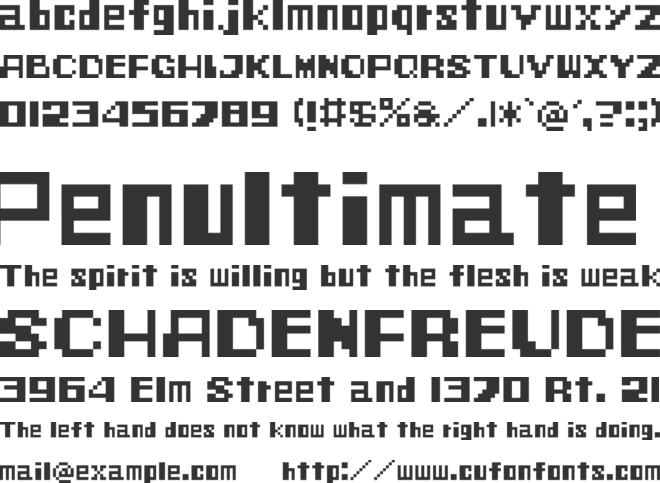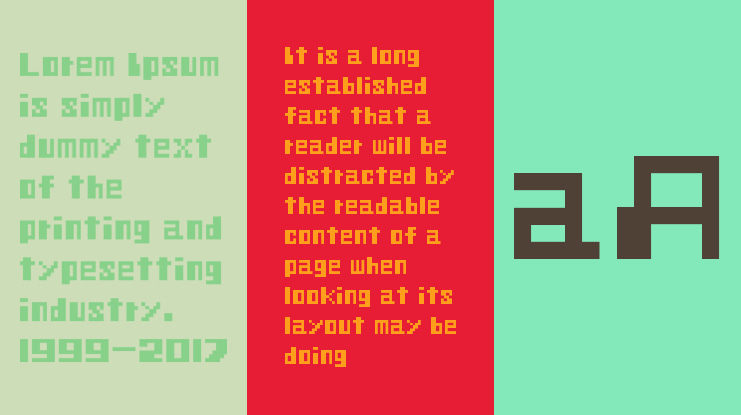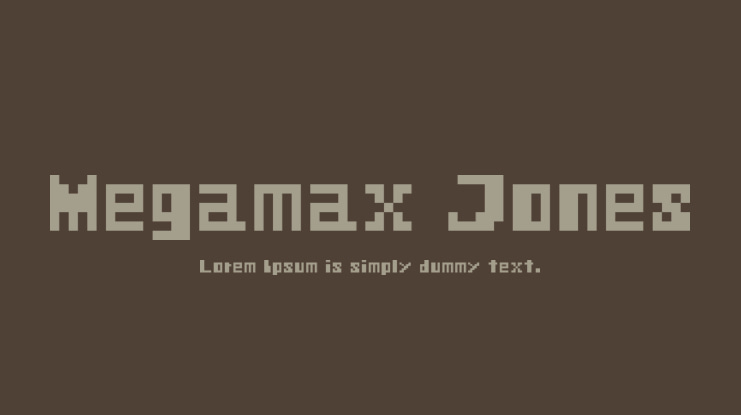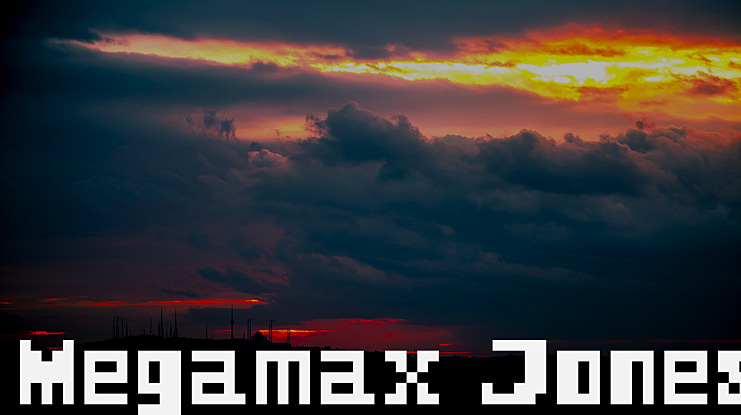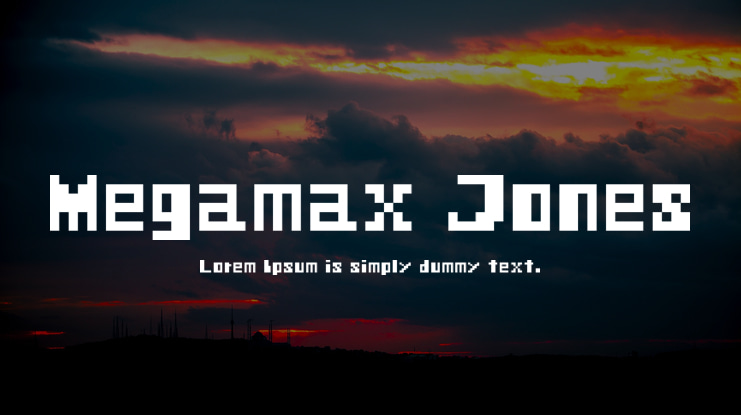
Megamax Jones Font
This is an extended version of ZXnes, the official Mega Man X(Rockman X in Japan) font created by female Chilean artist, La-Emperatriz, which was only contained limited character sets. It includes new loads of international characters not on the original font, supporting English, German, French, Finnish and more.
Extended version by Heaven Castro. Mega Man X (c) Capcom Co., Ltd. Based on MMX ESP by La-Emperatriz(which usually supports English and Spanish).